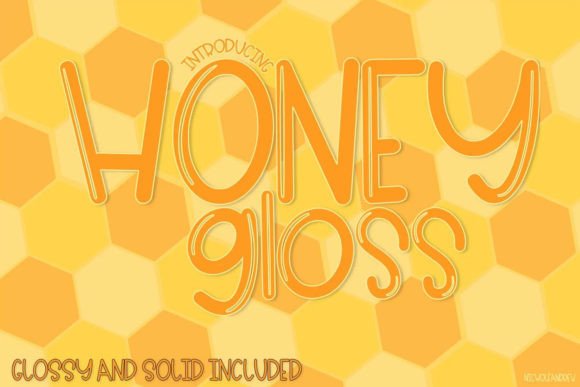
Embark on a journey of pure aesthetic delight with Honey Gloss Font, a captivating script font family that exudes charm and sophistication. Crafted with meticulous attention to detail by the talented NicholeAndrew, Honey Gloss boasts two mesmerizing variations – a lustrous 'shiny' version and a sleek 'solid' version – that cater to a diverse range of creative endeavors.
Immerse yourself in the allure of Honey Gloss, a font that embodies playfulness and elegance in equal measure. Its enchanting bubble-like glyphs, reminiscent of handwritten notes penned with love, dance across the page, leaving a trail of visual enchantment. Experience the magic of Honey Gloss as it transforms your creative visions into tangible masterpieces, adding a touch of whimsy and uniqueness to every project.
Unleash the full potential of Honey Gloss with your trusty cutting machines. Optimized nodes ensure a seamless cutting experience, allowing you to effortlessly bring your designs to life. Adorn decals, stickers, notebooks, and countless other surfaces with the exquisite charm of Honey Gloss. Let your creativity soar as you explore the endless possibilities that this versatile font has to offer.
Honey Gloss is more than just a font; it's an invitation to express your individuality and leave a lasting impression. Its modern aesthetic and captivating presence make it the perfect choice for logos that demand attention. Whether you're a seasoned designer or just starting your creative journey, Honey Gloss is your gateway to creating logos that resonate with your audience and leave a lasting impact.